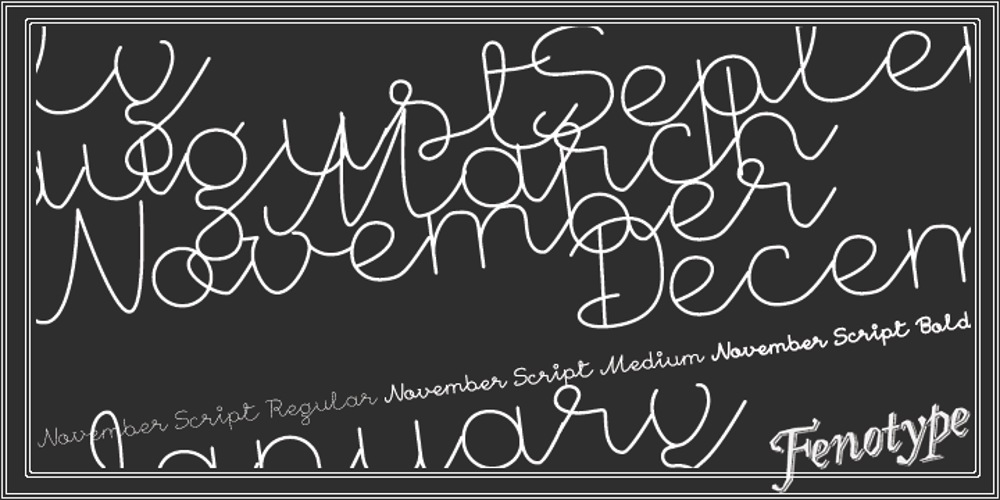
November Script Font Family was designed by Emil Karl Bertell and published by Fenotype. November Script contains 3 styles and family package options. November Script is a continuously flowing and spinning font family. It was originally designed for an award winning art calendar published by TAIK (University of Industrial Art & Design) In 2007. Afterwards the font has been waiting for its second coming. November Script is well suitable for headlines, posters, flyers and schoolbooks.